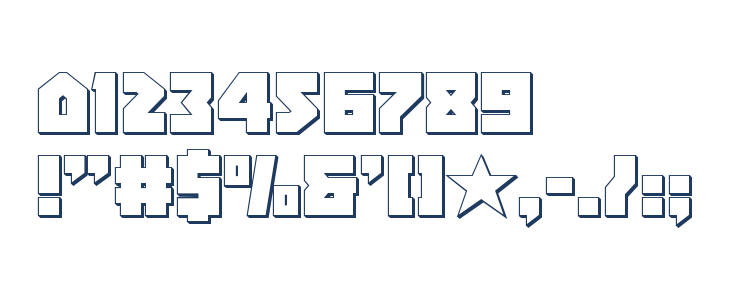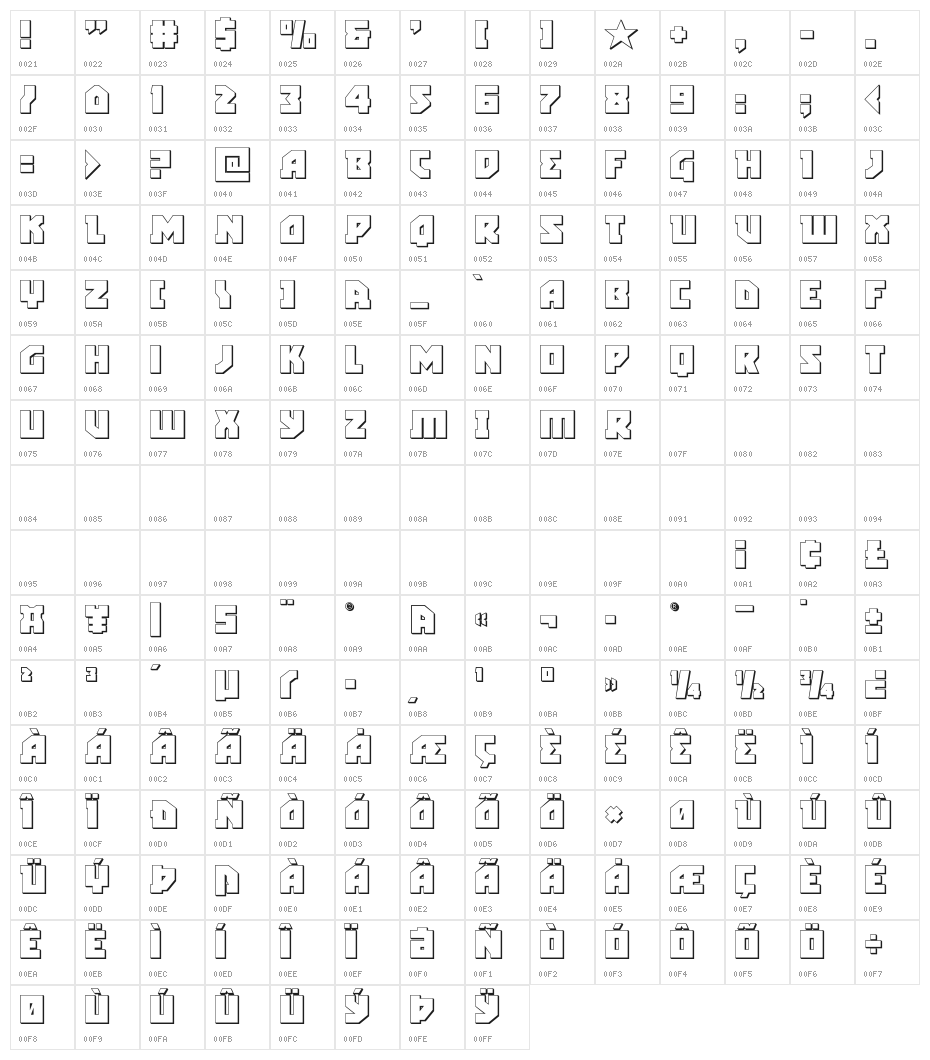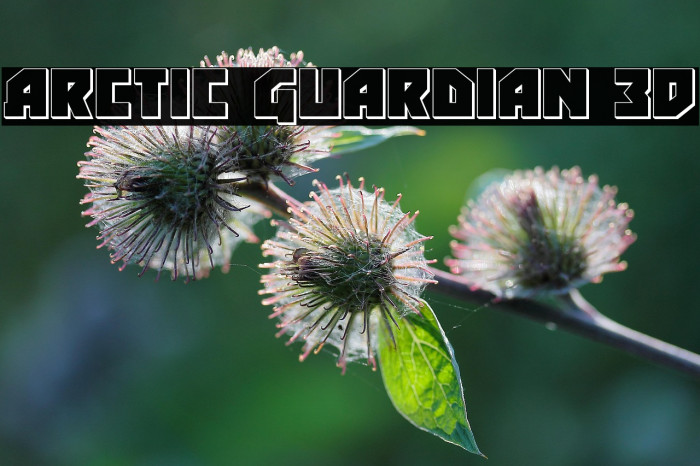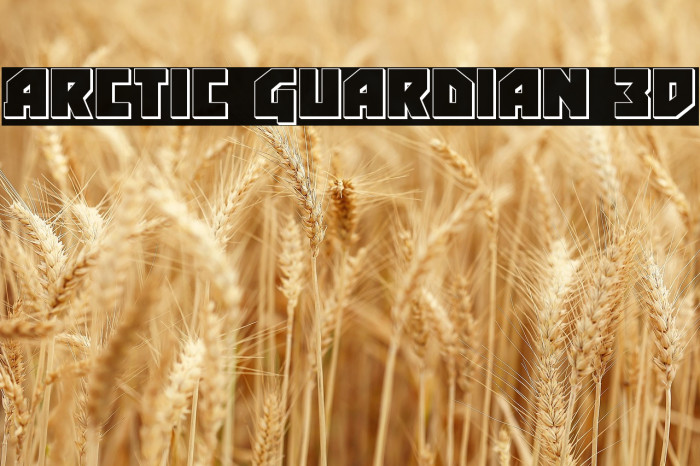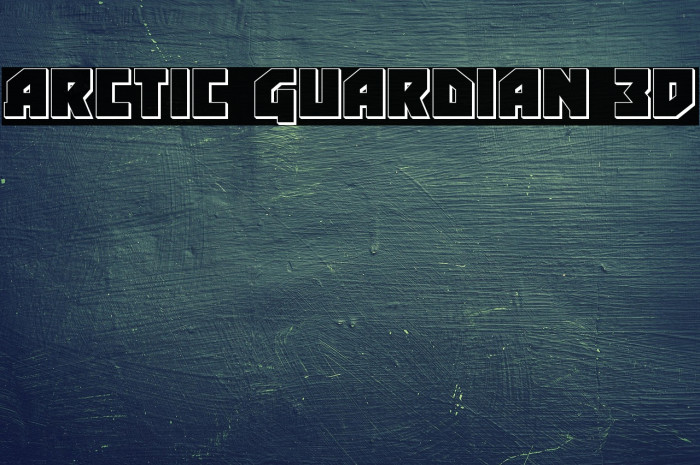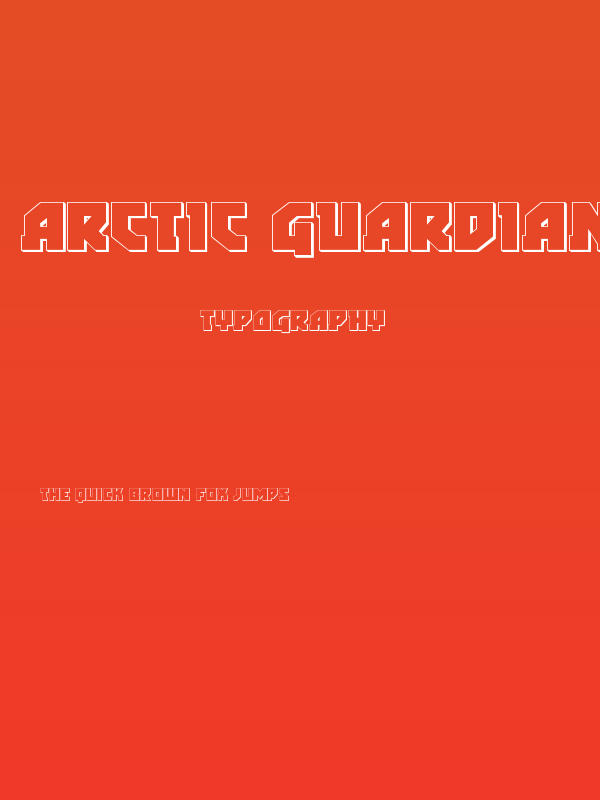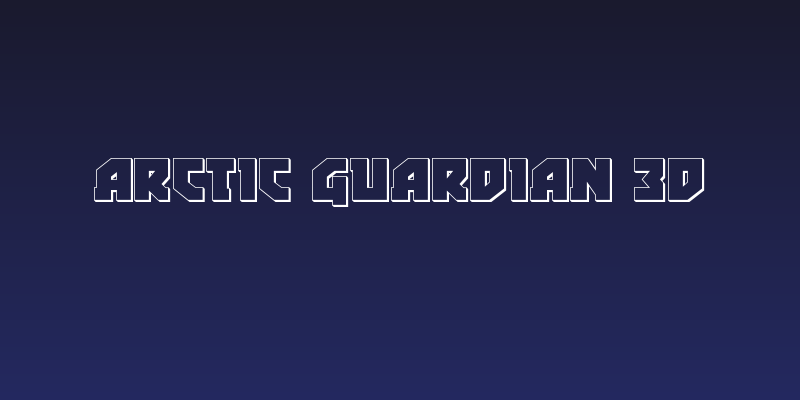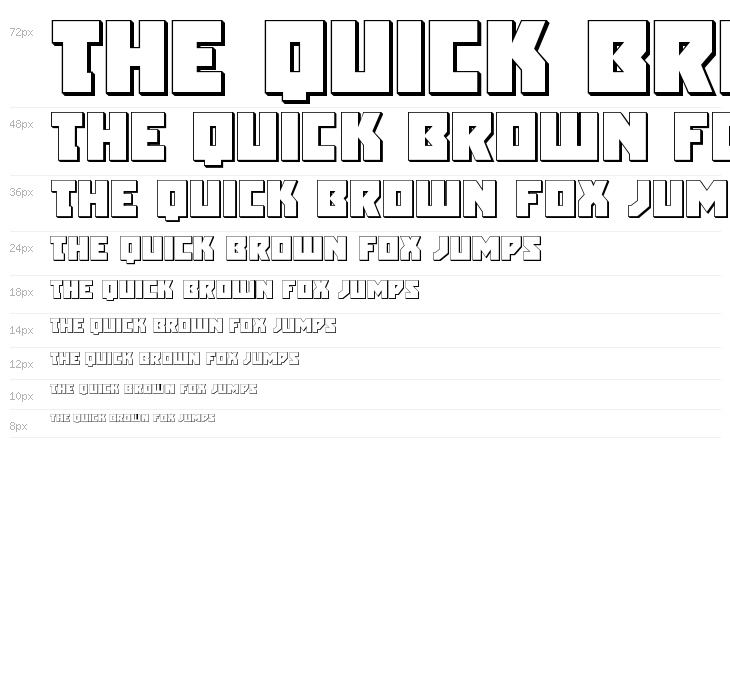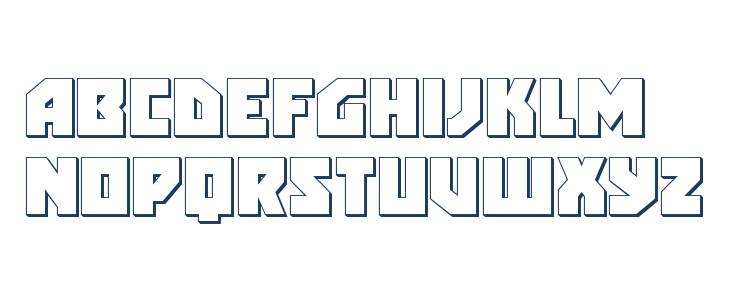
This font features a bold, three-dimensional design with a blocky, geometric structure. Each character is outlined, giving it a distinct, shadowed appearance that enhances its 3D effect. The uppercase letters are uniform in height and width, creating a cohesive and balanced look. The numbers and special characters maintain the same stylistic approach, ensuring consistency across all elements. The font's style is reminiscent of retro video game graphics, making it ideal for projects that require a strong, impactful visual presence.
| Overall Style | Retro, Decorative |
| Proposed Projects | Ideal for video game titles, posters, logos, and any design requiring a bold, retro look. |